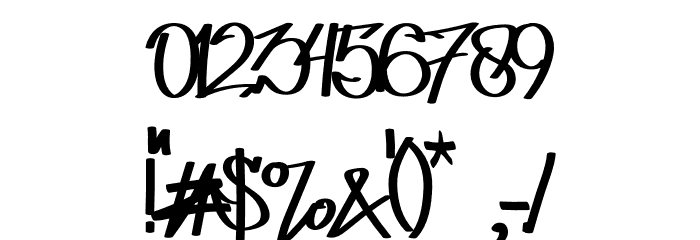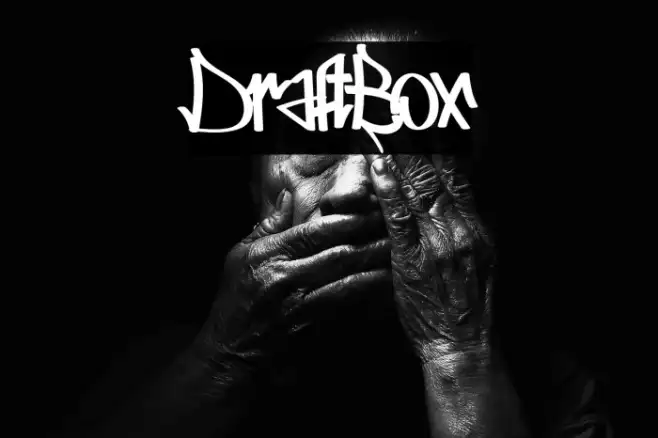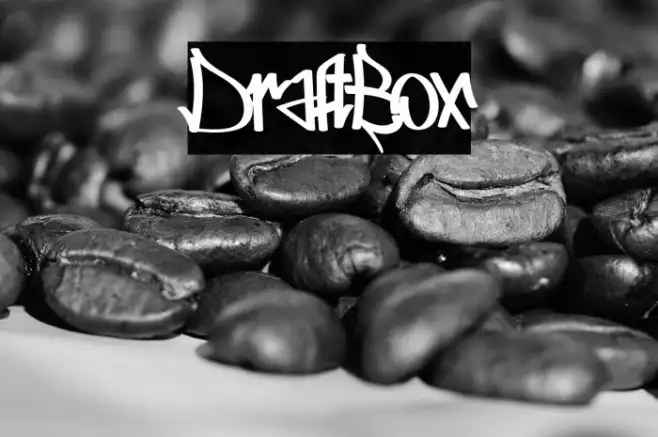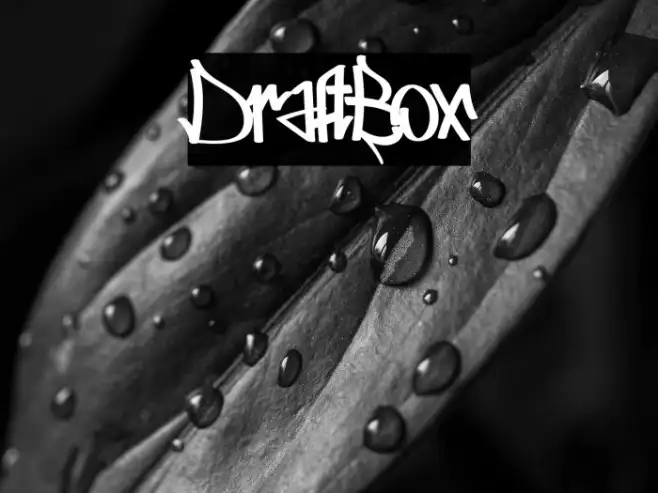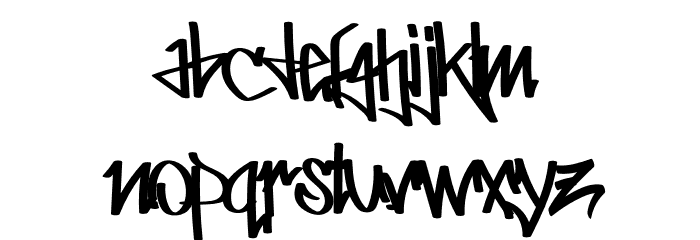
DraftBox Font
DraftBox Description
This font features a bold and expressive graffiti style, characterized by its dynamic and energetic strokes. The letters are highly stylized with sharp angles and exaggerated curves, creating a sense of movement and urban flair. The uppercase and lowercase letters maintain a consistent aesthetic, while the numbers and special characters integrate seamlessly with the overall design. The font's unique appearance makes it ideal for projects that require a strong visual impact, such as street art-inspired designs, edgy branding, or youth-oriented marketing materials.
| Overall Style | Urban, Graffiti, Edgy |
| Use Case | Logos, Posters, Headlines |
| Proposed Projects | Street art designs, edgy branding, youth marketing materials, event posters. |